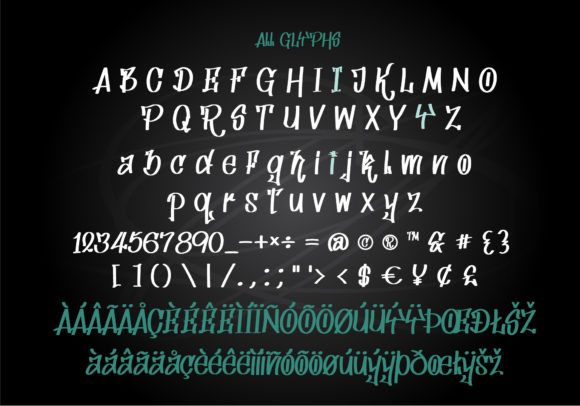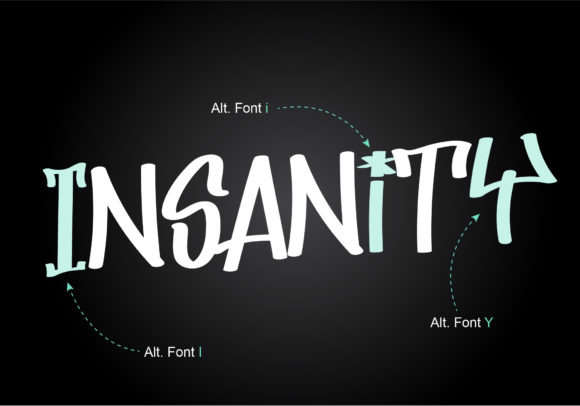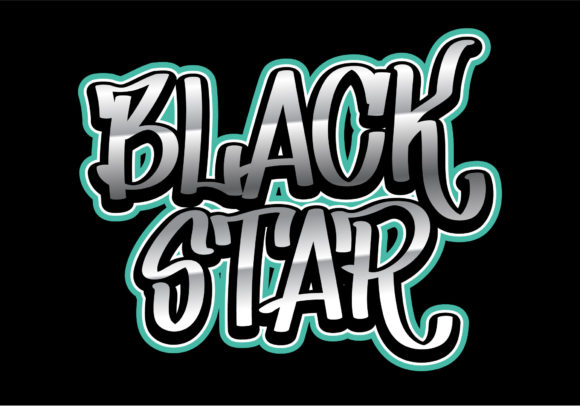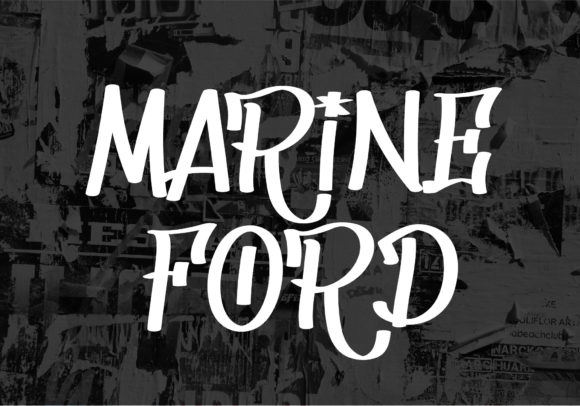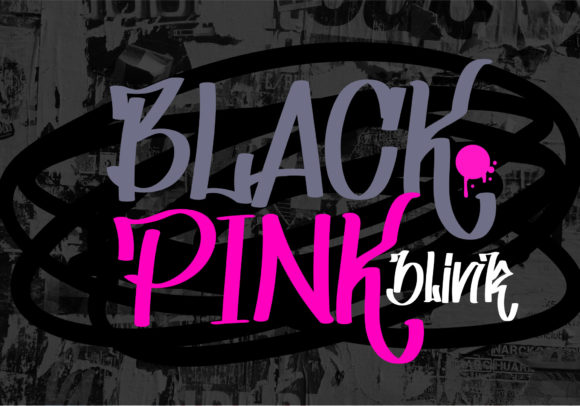
Introducing Crash Font: The Ultimate Graffiti-Style Display Font
Are you a designer or crafter looking for a font that adds a touch of street art to your designs? Look no further than Crash Font, an awesome graffiti-style display font that’s perfect for creating eye-catching designs. With its bold and edgy vibe, Crash Font is ideal for a wide range of projects, from t-shirts and sportswear to logos, advertisements, and clothing.
What is Crash Font?
Crash Font is a unique and stylish font that’s inspired by the urban landscape. Its graffiti-style design gives it a raw, edgy feel that’s perfect for designers who want to add a bit of attitude to their work. The font is highly legible, making it suitable for use in a variety of contexts, from large-scale billboards to smaller, more intimate designs like t-shirts and stickers.
Key Features of Crash Font
• Graffiti-style design: Crash Font has a bold, street art-inspired design that’s perfect for adding a touch of urban grit to your designs.
• Highly legible: Despite its bold and edgy design, Crash Font is highly legible, making it suitable for use in a wide range of contexts.
• Versatile: Crash Font is perfect for a wide range of designs, from t-shirts and sportswear to logos, advertisements, and clothing.
• Easily customizable: Crash Font is highly customizable, allowing you to adjust the font to suit your design needs.
Uses for Crash Font
Crash Font is a versatile font that can be used in a wide range of designs, including:
• T-shirts and sportswear: Add a touch of street art to your apparel designs with Crash Font.
• Logos and branding: Use Crash Font to create bold, eye-catching logos that make a statement.
• Advertisements: Crash Font is perfect for use in advertisements, from billboards to social media ads.
• Clothing and accessories: Use Crash Font to add a touch of urban grit to your clothing and accessory designs.
Why Choose Crash Font?
There are many fonts available that offer a similar graffiti-style design, but Crash Font stands out from the crowd for several reasons:
• Unique design: Crash Font has a unique and stylish design that’s sure to turn heads.
• High-quality: Crash Font is a high-quality font that’s designed to produce crisp, clear results.
• Easily customizable: Crash Font is highly customizable, allowing you to adjust the font to suit your design needs.
Tips for Using Crash Font
Here are a few tips for getting the most out of Crash Font:
• Use it boldly: Crash Font is designed to make a statement, so don’t be afraid to use it boldly.
• Experiment with colors: Crash Font looks great in a wide range of colors, so don’t be afraid to experiment.
• Pair it with other fonts: Crash Font can be paired with other fonts to create a unique and stylish design.
Crash Font is an awesome graffiti-style display font that’s perfect for designers and crafters who want to add a touch of street art to their designs. With its bold and edgy vibe, Crash Font is ideal for a wide range of projects, from t-shirts and sportswear to logos, advertisements, and clothing. Its highly legible design and easily customizable features make it a great choice for designers of all skill levels.